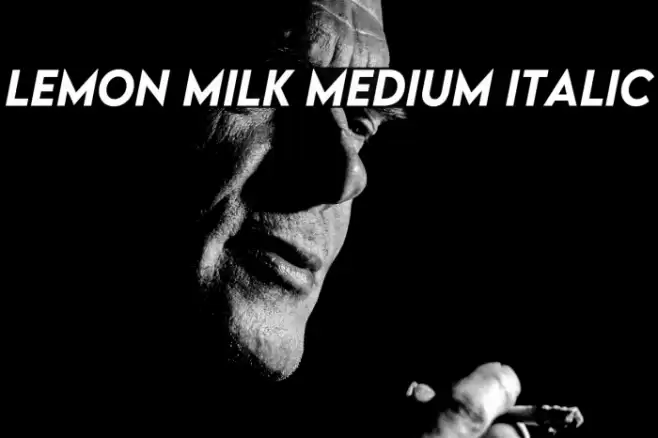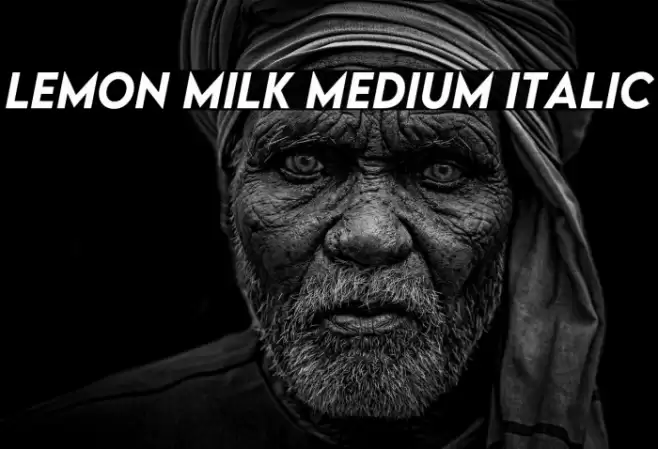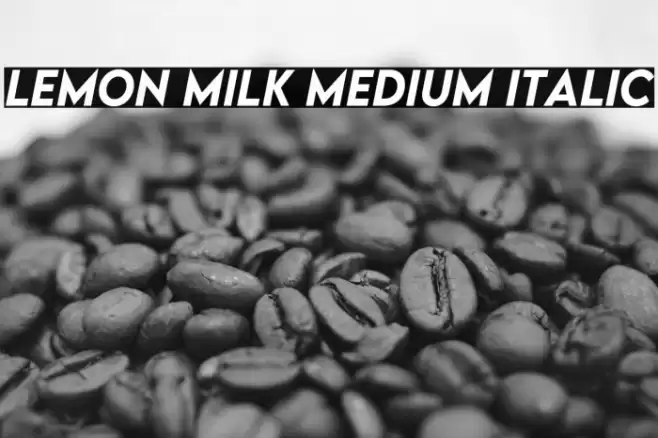
LEMON MILK Medium Italic Font
LEMON MILK Medium Italic Description
This font exhibits a modern and sleek design with a geometric sans-serif style. Its italicized form adds a dynamic and forward-leaning appearance, making it suitable for contemporary and energetic projects. The characters are well-proportioned, with clean lines and a consistent stroke width that maintains readability across various sizes. The uppercase and lowercase letters are distinct, with a slight slant that enhances the font's modern aesthetic. The numerals and special characters are designed to match the overall style, ensuring a cohesive look in any text composition.
A modern, geometric sans-serif font with an italicized, dynamic style from Uncategorized fonts.
- Proposed Projects: Ideal for branding, advertising, and editorial design where a modern and energetic feel is desired.
- Use Case: Headlines, Logos, Branding